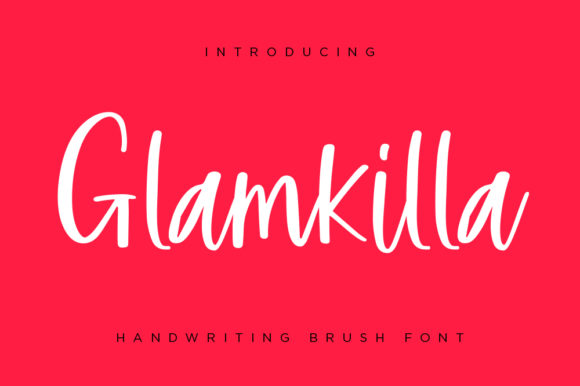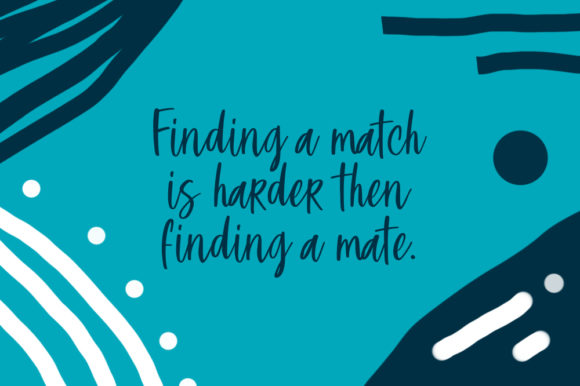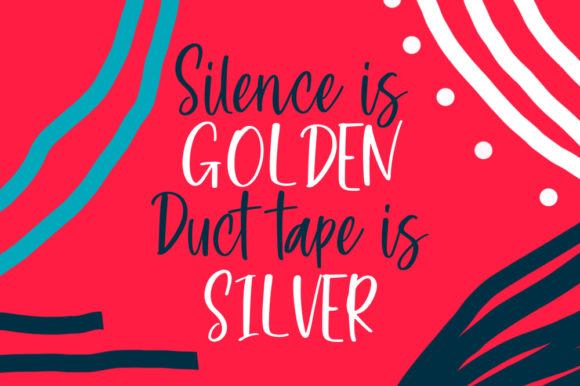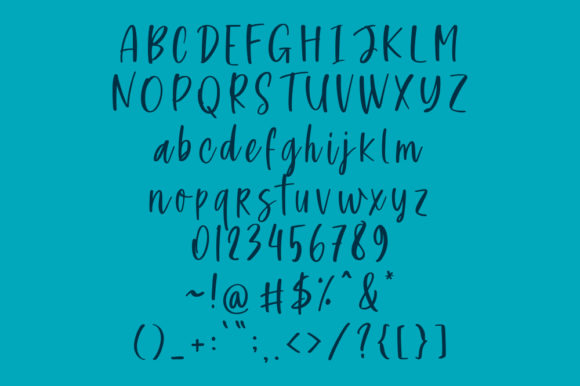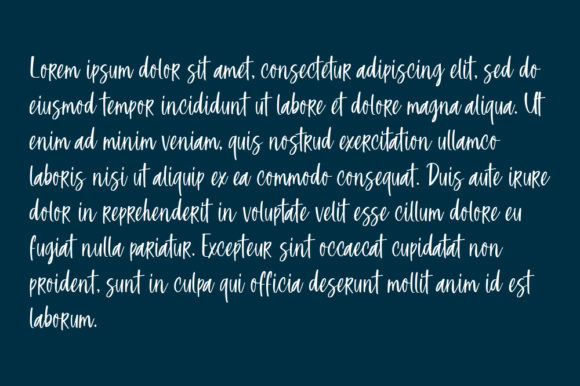
Glamkilla Font
About Glamkilla Font
Glamkilla is a casual fun handwritten font using a brush pen. Clean and a little bit quirky, this font is the perfect fit for all of your logos, branding, social media, and crafty DIY projects!